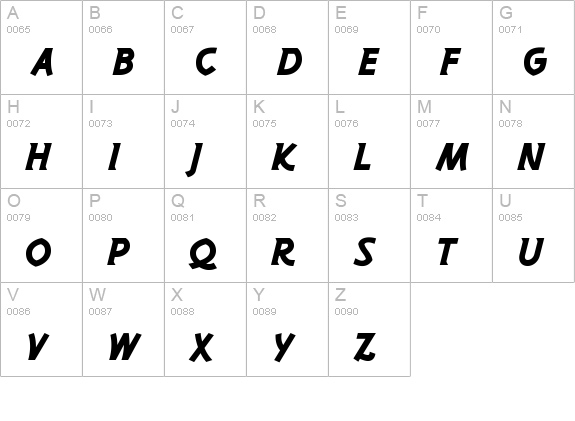
Karmen-BoldItalic Font Details
Karmen-BoldItalic is a stunning and sophisticated font that is sure to make a bold statement in any design project. Its sleek and elegant curves, combined with the perfect balance between boldness and italics, give this font a unique and captivating look. This font exudes confidence and modernity, making it perfect for headlines, titles, logos, and any design that needs a touch of boldness and style. Its versatility allows it to be used in various contexts, from fashion and beauty to technology and business. What makes Karmen-BoldItalic even more remarkable is that it is available for free. Yes, you read that right! This incredible font can be freely downloaded at FontsMarket.com. Whether you are a professional designer or a hobbyist, you can now add this exceptional font to your collection without breaking the bank. With its wide range of characters and language support, Karmen-BoldItalic offers endless creative possibilities. Its smooth and flowing lines will effortlessly enhance your designs, giving them a touch of sophistication and flair. This font is designed to stand out and leave a lasting impression on anyone who sees it. So why wait? Start creating stunning designs with Karmen-BoldItalic today. Download it for free at FontsMarket.com and experience the power and beauty of this remarkable font. Let your creativity soar with the help of this freely available font that is sure to take your designs to the next level.